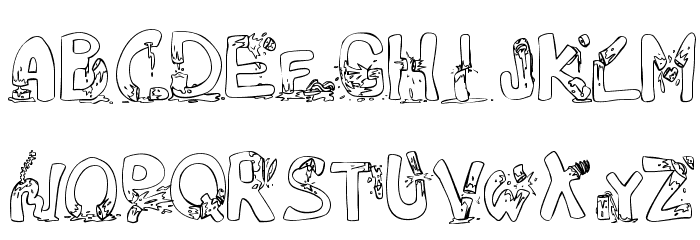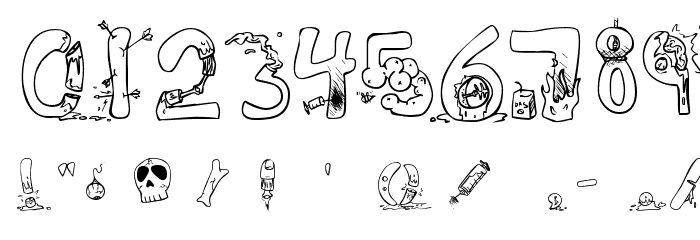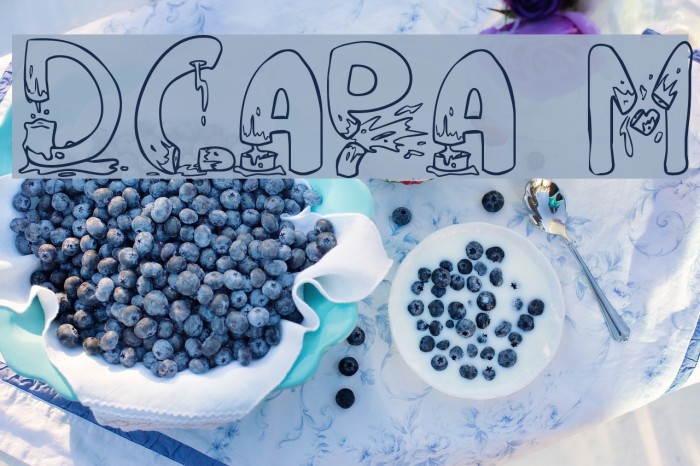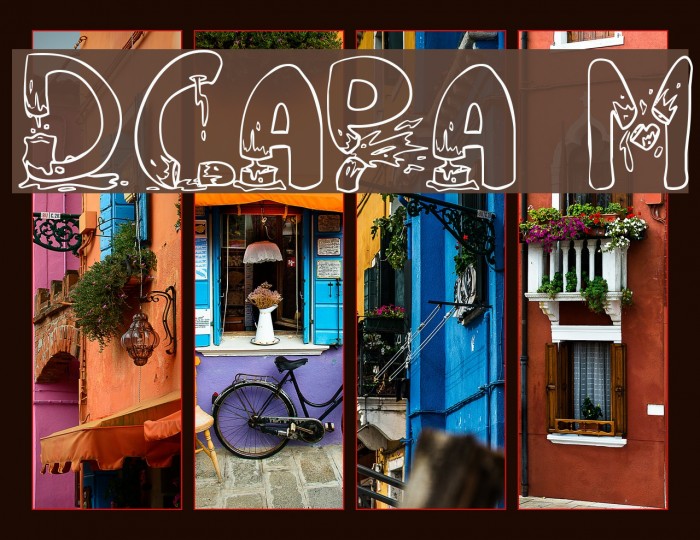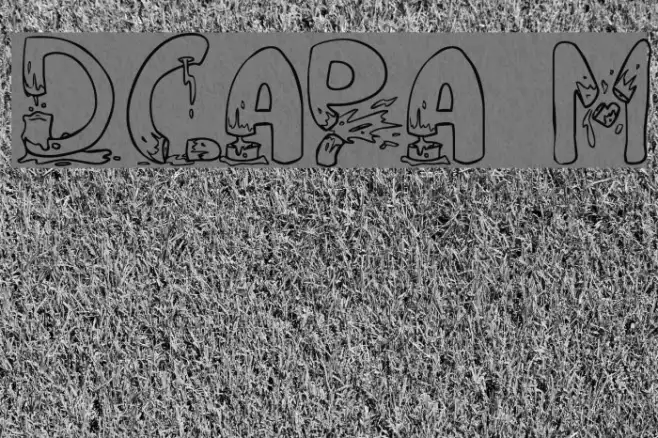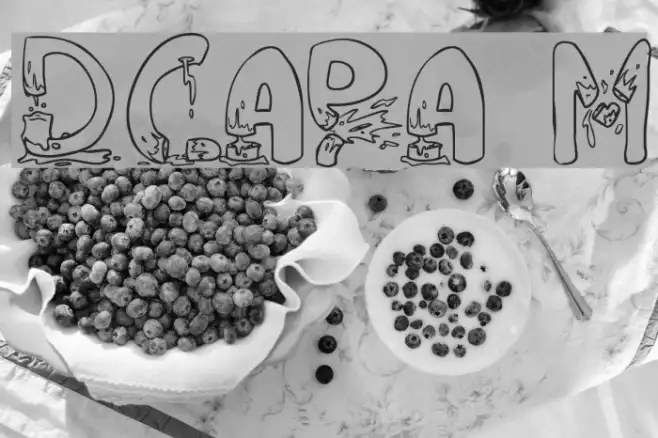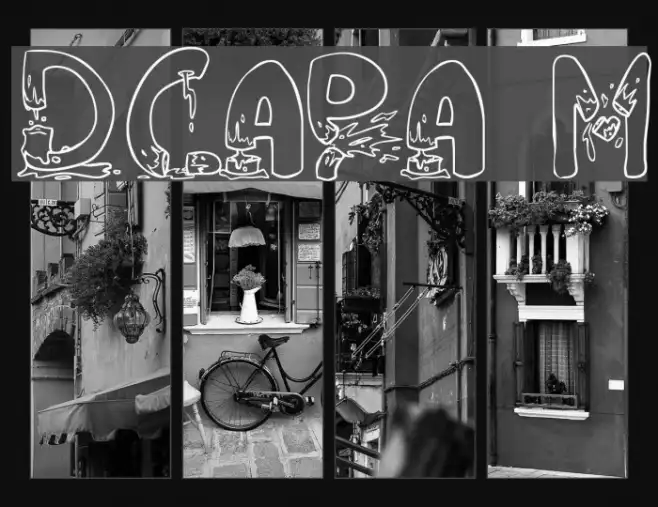
DeCAPitated Medium Font
This font is a highly decorative and playful typeface, featuring letters that appear as if they are melting or disintegrating. Each character is uniquely designed with elements like drips, splatters, and quirky details that give it a chaotic yet artistic look. The uppercase and lowercase letters maintain a consistent style, with exaggerated features and a hand-drawn aesthetic. Numbers and special characters follow the same theme, incorporating imaginative and whimsical elements. This font is perfect for projects that require a bold and eye-catching design, such as posters, album covers, or Halloween-themed graphics.
A decorative, playful font with melting, disintegrating characters.
- Proposed Projects: Ideal for posters, album covers, Halloween-themed graphics, and artistic designs.